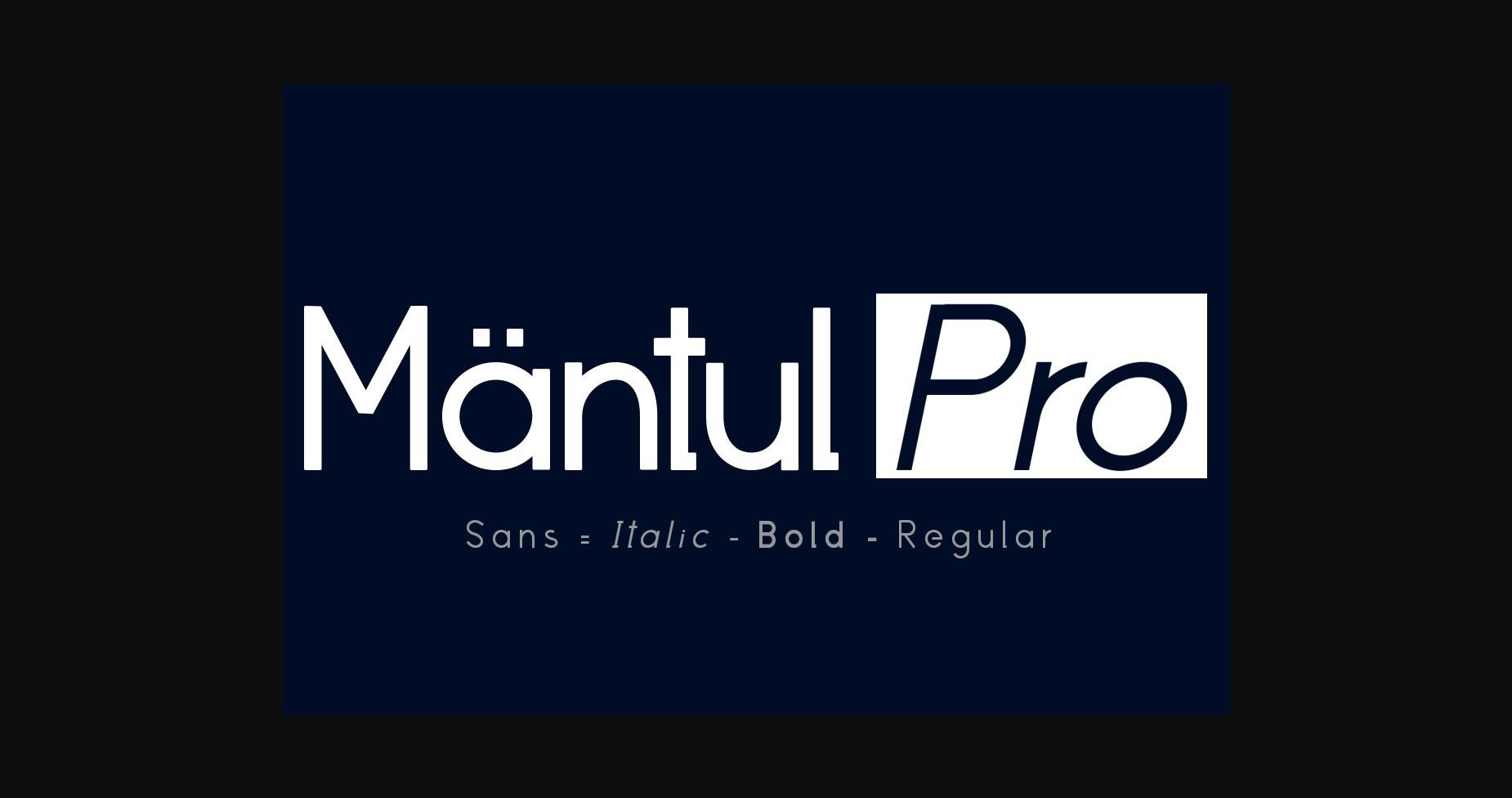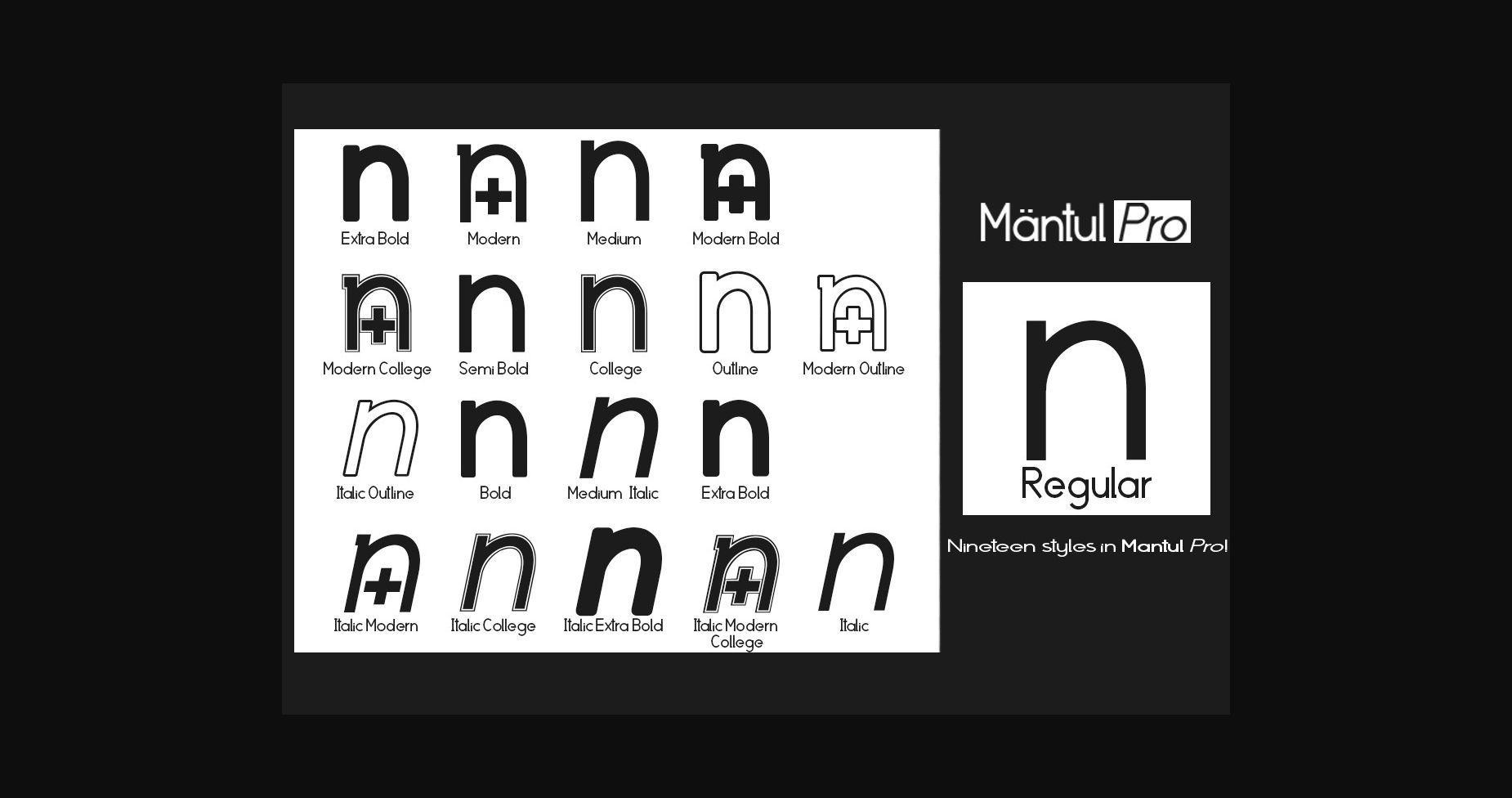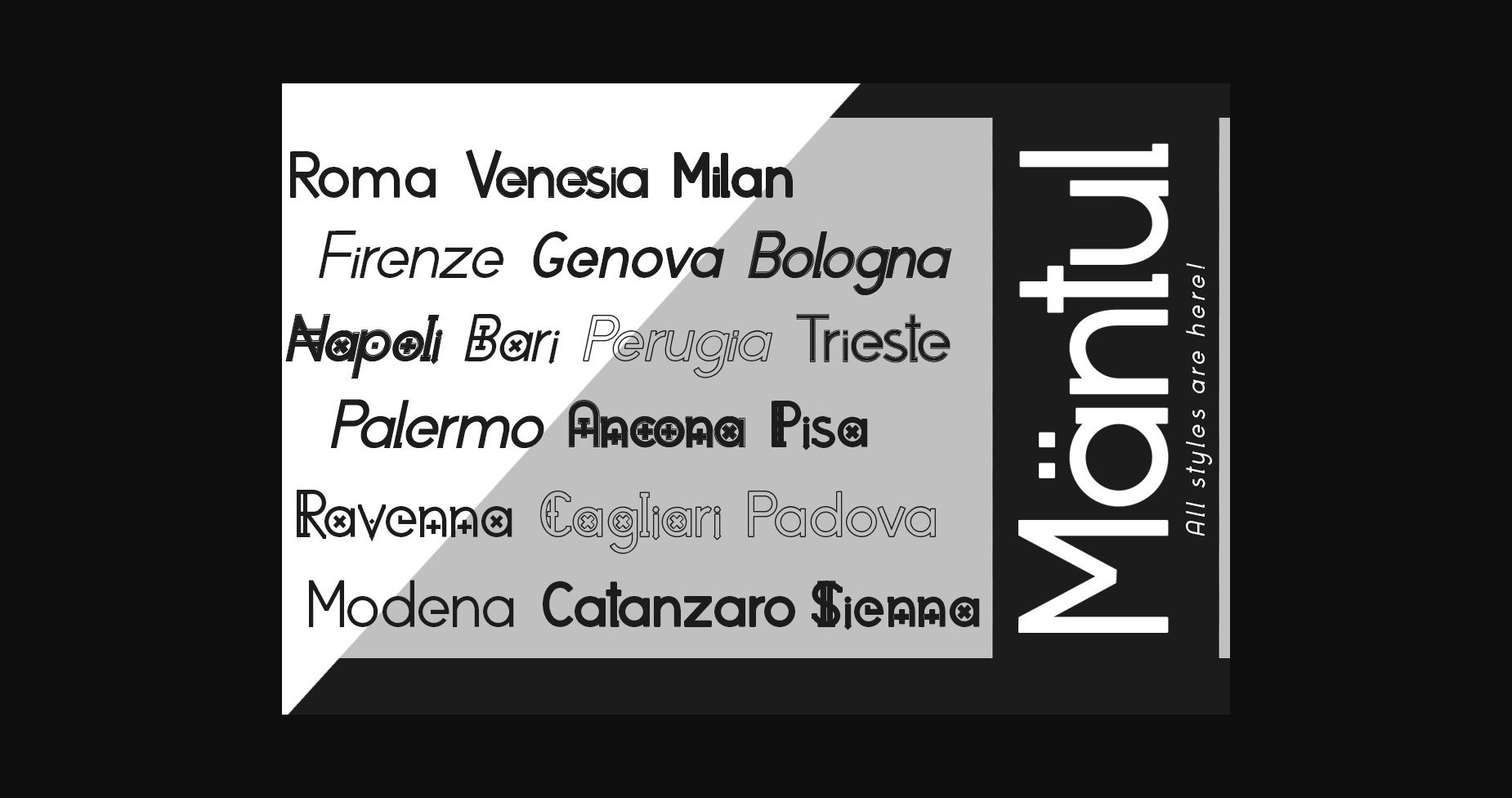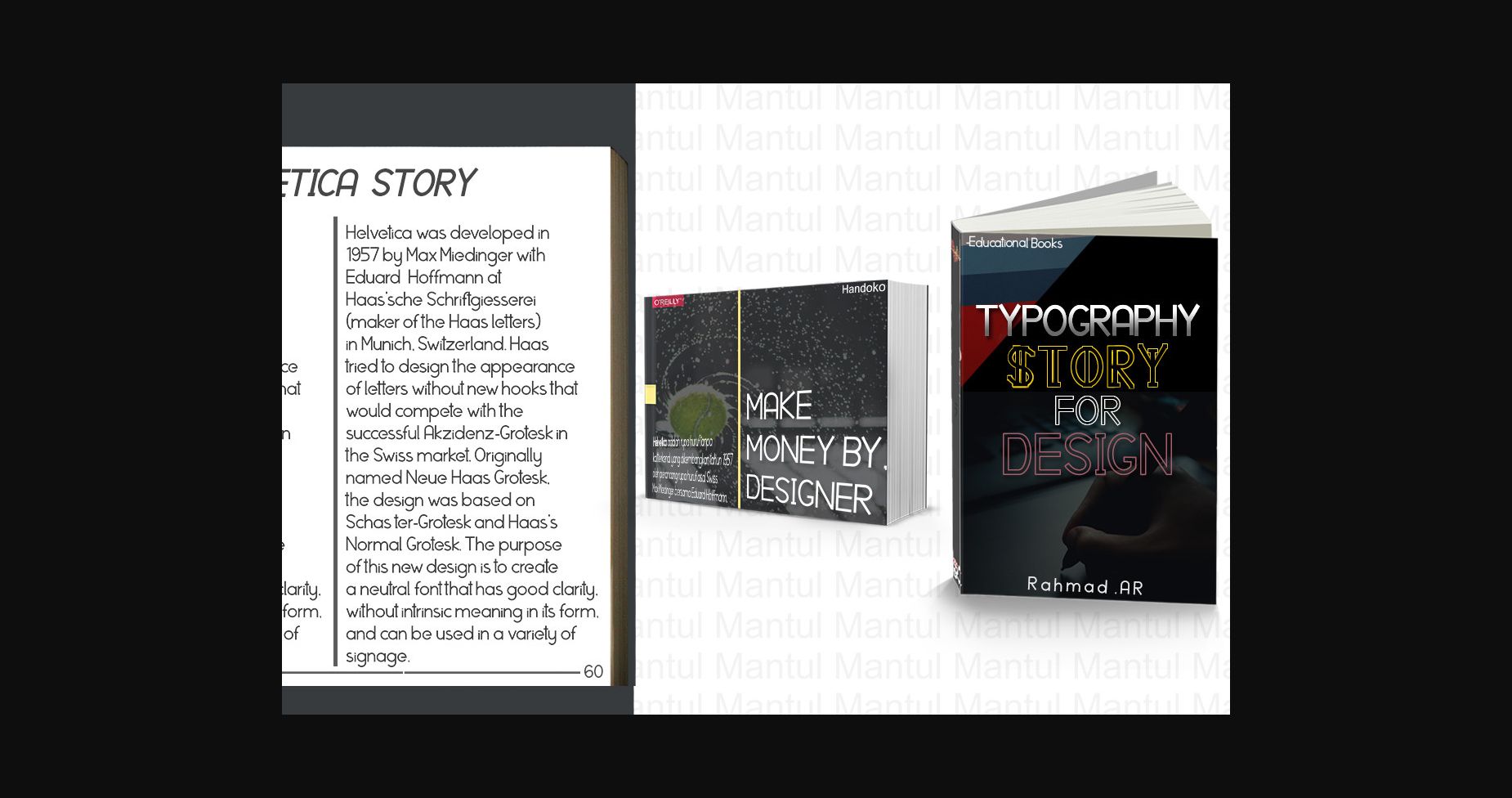
About Mantul Pro Font
Mantul Pro is inspired by the sans-serif style and a little modern touch, making this font luxurious & neat. Mantul Pro has 19 font styles that are luxurious & extraordinary. This font is very nice for designing magazine previews and covers design, logo designs, shirt designs, and other graphic needs.